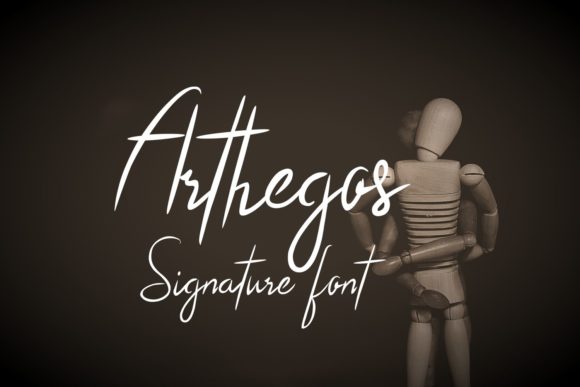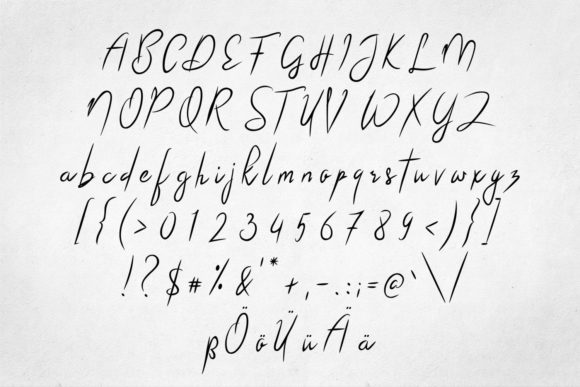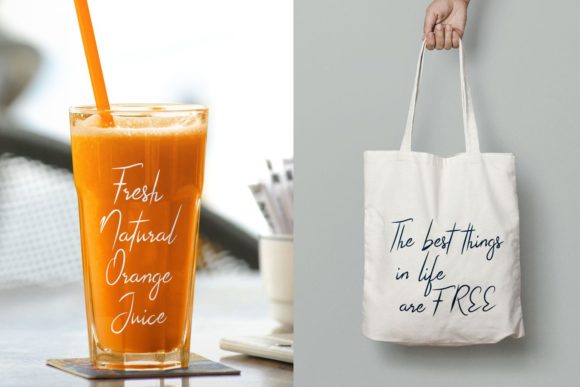
HomeScript FontsArthegos Font Script Fonts Arthegos Font FacebookXPinterestWhatsApp Arthegos Font Poster 2 Arthegos Font Poster 3 About Arthegos Font Arthegos is a simple and charming script with a casual feel. Get inspired by its light charm. DOWNLOAD ON CREATIVE FABRICAThis font is sold and delivered by Creative Fabrica. Font Canyon may earn a commission if you buy through this link. People also explored Something Real Font Filmotype Homer Bellychestor Font Callstories Font Carefully Font Kingbirds Script Font Play Elephant Font Victoria Font DT Augustina Slab 7 Subfamily Font 339 0 TagsArthegos Font Previous articleWildflower FontNext articleGoodmarker Font LEAVE A REPLY Cancel reply Comment: Please enter your comment! Name:* Please enter your name here Email:* You have entered an incorrect email address! Please enter your email address here Website: Save my name, email, and website in this browser for the next time I comment. Personal Use Free Sellena Brush Font Personal Use Free Read more about this font Droid Personal Use Free Read more about this font Theobald Personal Use Free Read more about this font Masha Song Personal Use Free Read more about this font BLOG Top 10 Handwritten Fonts That Elevate Your Designs Top 10 Handwritten Fonts That Will Elevate Your Designs Handwritten fonts bring a warm, personal touch to every creative project. Whether you're designing logos, invitations,... Best Fonts for T-Shirt Design – Top 2025 Picks Best Fonts for YouTube Videos: Make Your Thumbnails Stand Out 5 Fonts That Will Dominate Design Trends in 2026